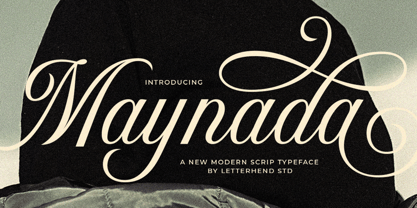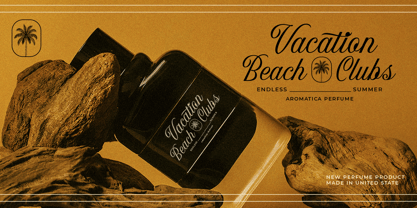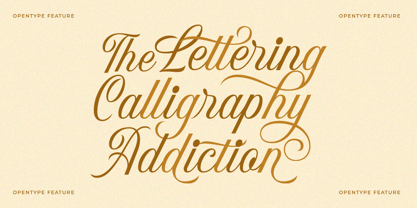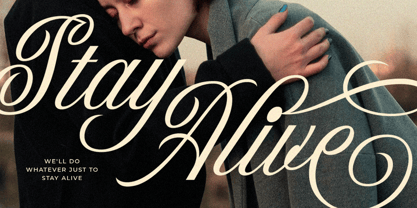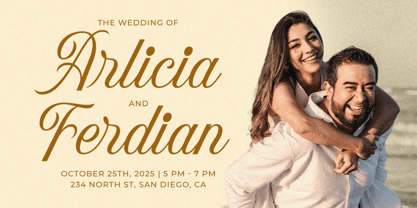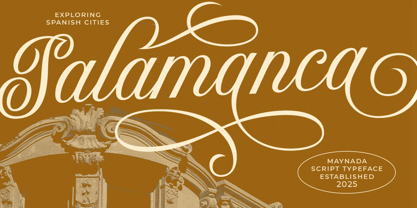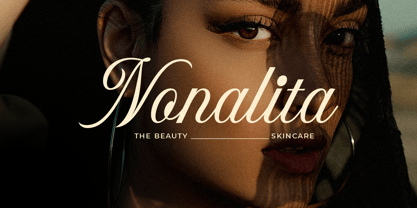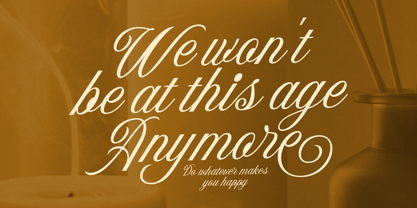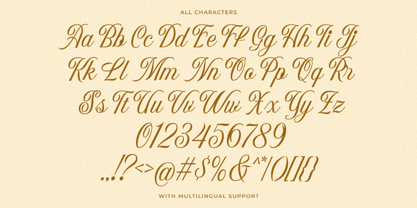
Maynada
by Letterhend
The Maynada Font Family was designed by Hendry Juanda and published by Letterhend. Maynada contains 1 styles. More about this family
Maynada is a modern script typeface with an elegant flair and luxurious classic touch. Featuring smooth lines and dramatic swashes, this font is perfect for branding, wedding invitations, fashion editorials, and high-end product packaging. Its refined yet bold letterforms exude sophistication and charm, making it ideal for designs that seek a glamorous, feminine, and timeless aesthetic.
Features :
• Uppercase & lowercase
• Numbers and punctuation
• Alternates Character
• Multilingual support
Designers: Hendry Juanda
Foundry: Letterhend